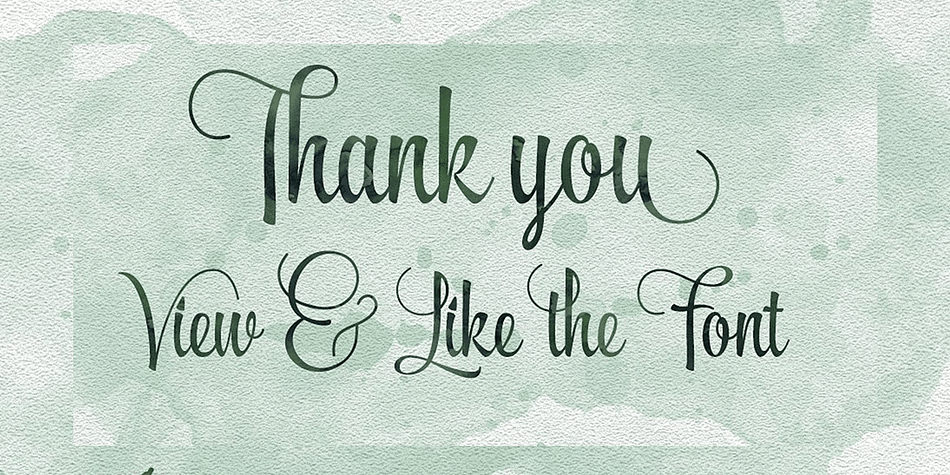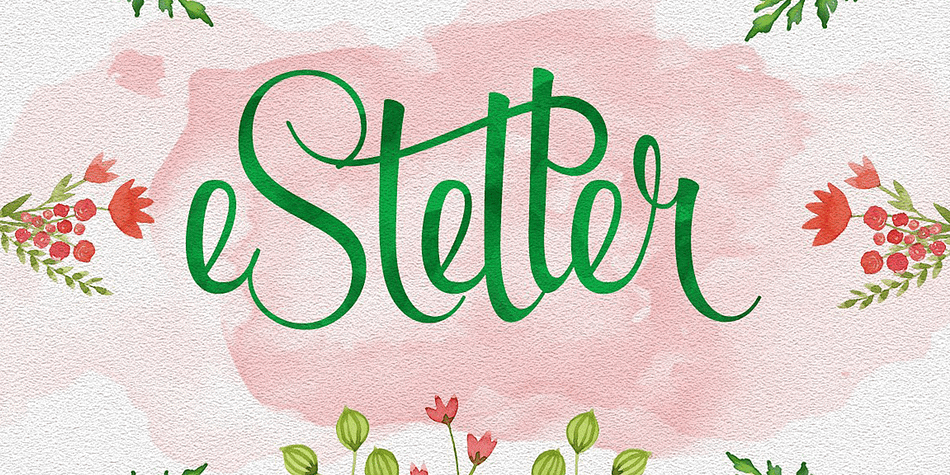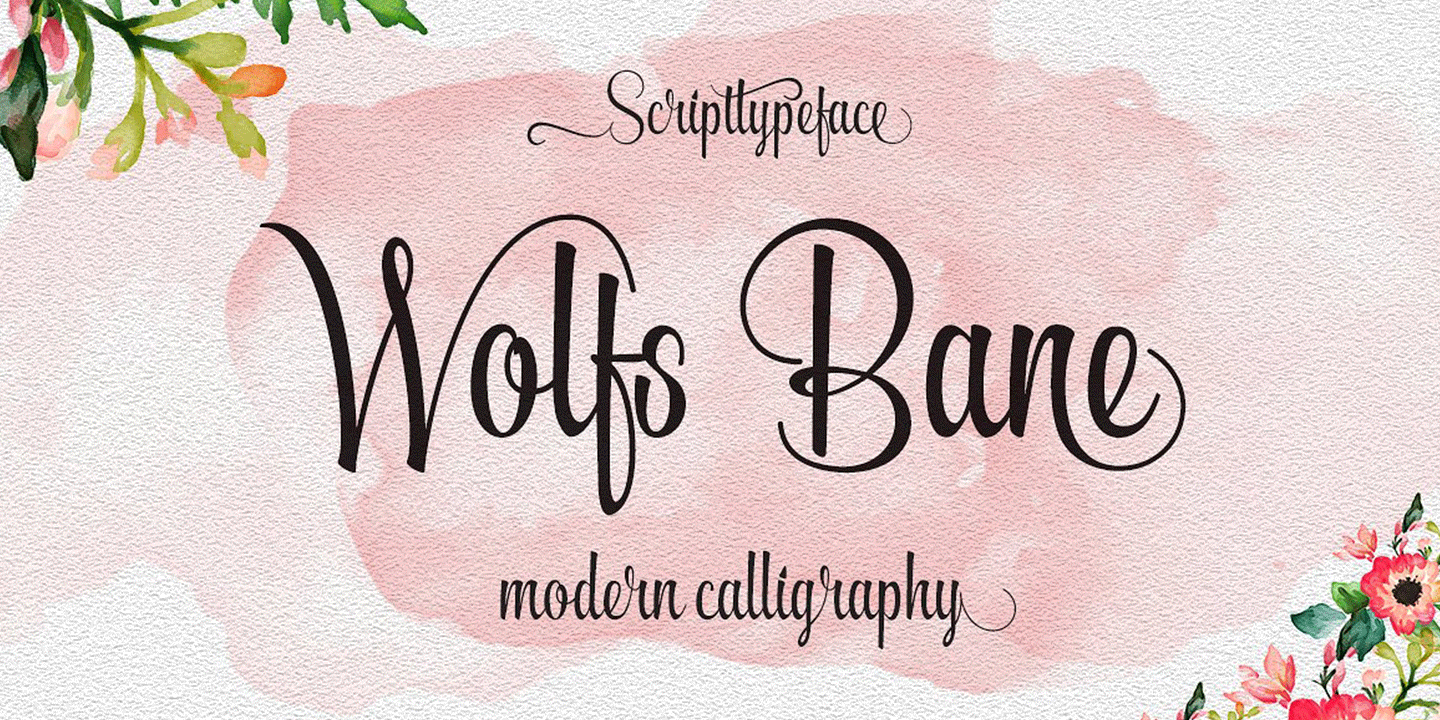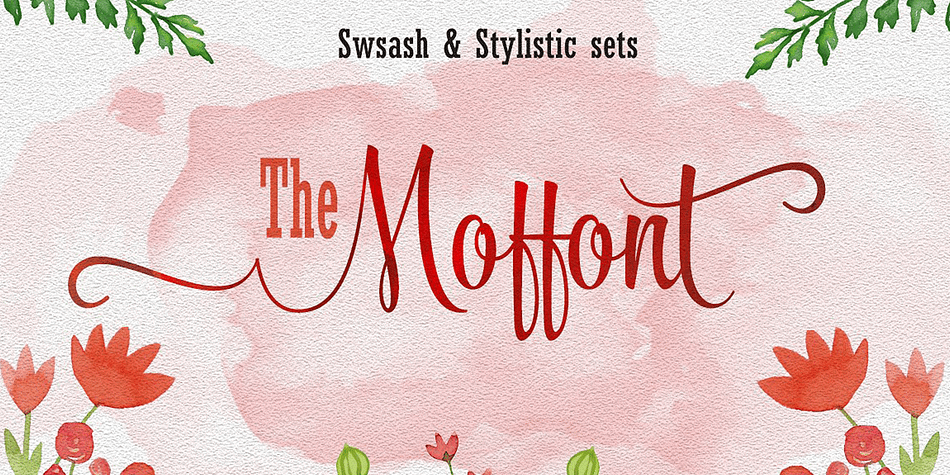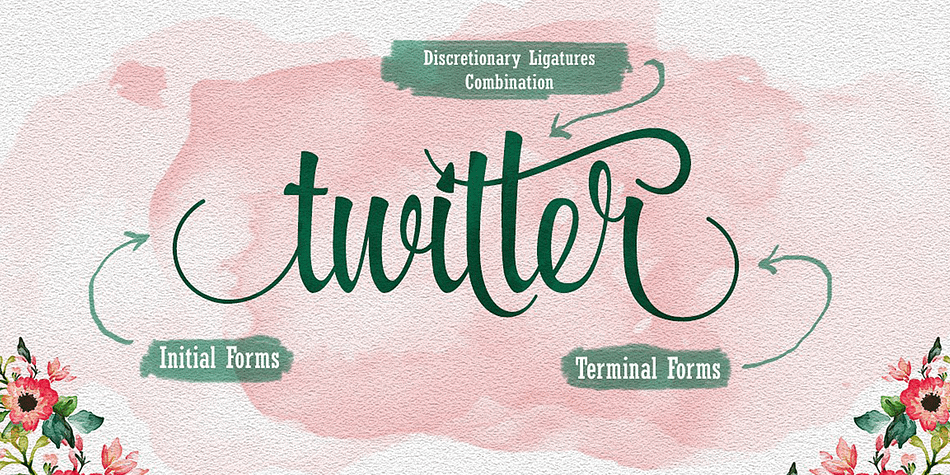
Designed by Roiyani Teungku, Wolfbane is a script and dingbat font family. This typeface has two styles and was published by Groens.
Wolfsbane is a brush script that is beautiful and unique, it is a model of modern calligraphy typefaces, in combination with a calligraphy writing style. The Features of this fonts is;
Contextual swashes
Contextual Alternates
Standart ligatures
Discretionary ligatures
Initial Forms
Terminal Forms
Stylistic Alternates
Stylistic sets
Wolfsbane Ornament